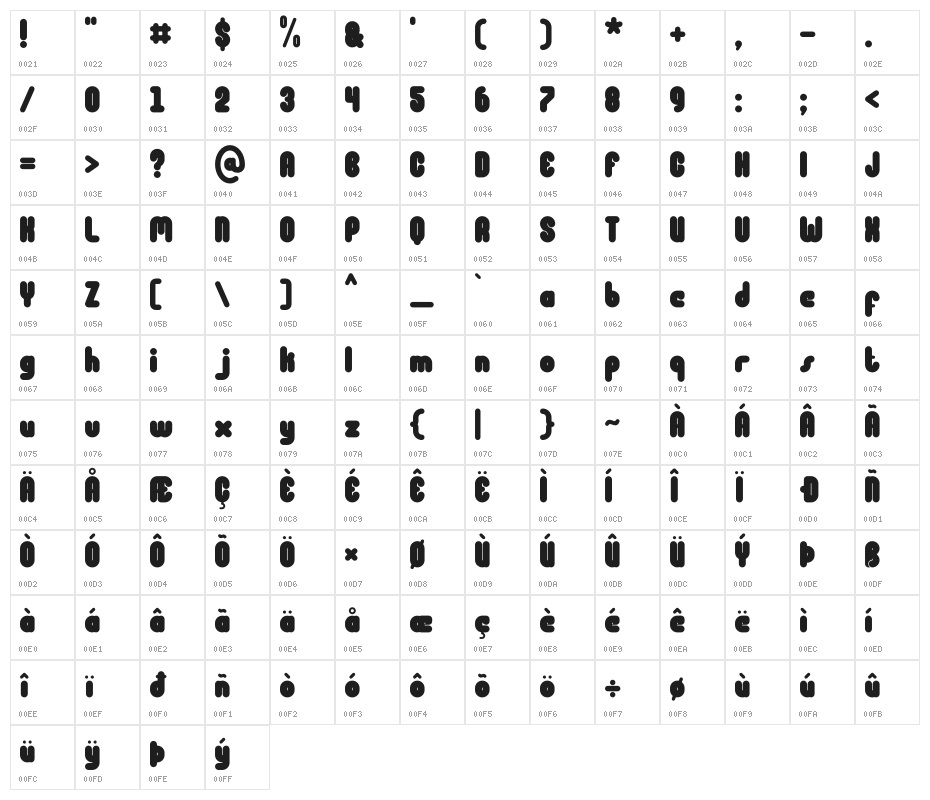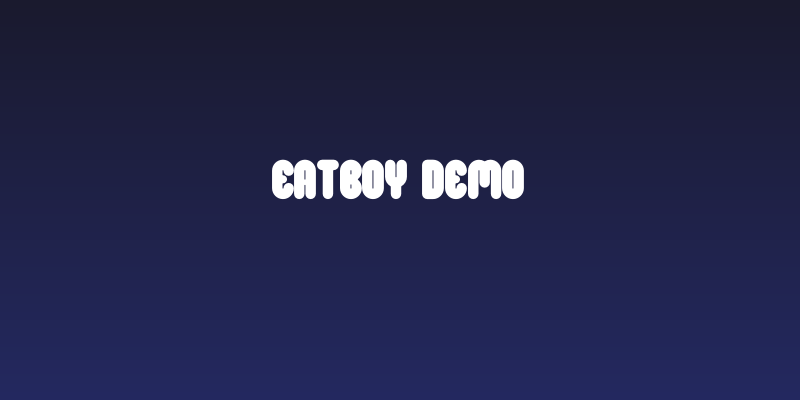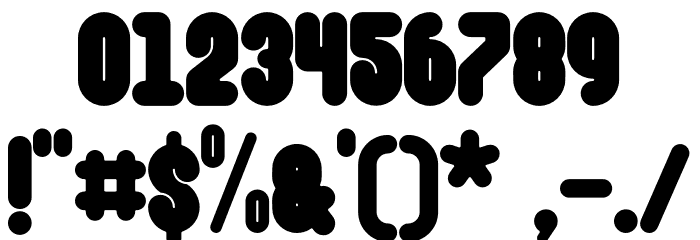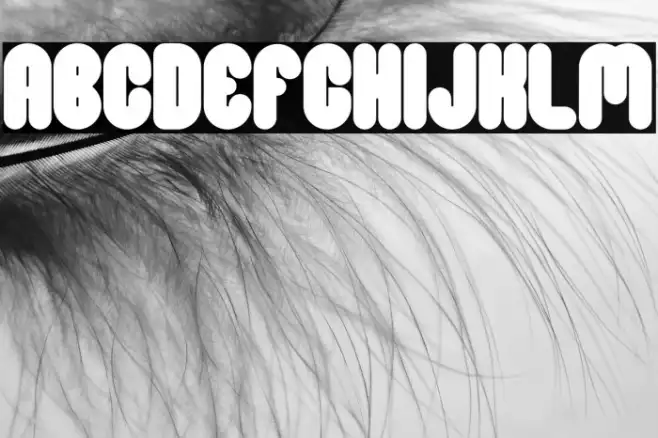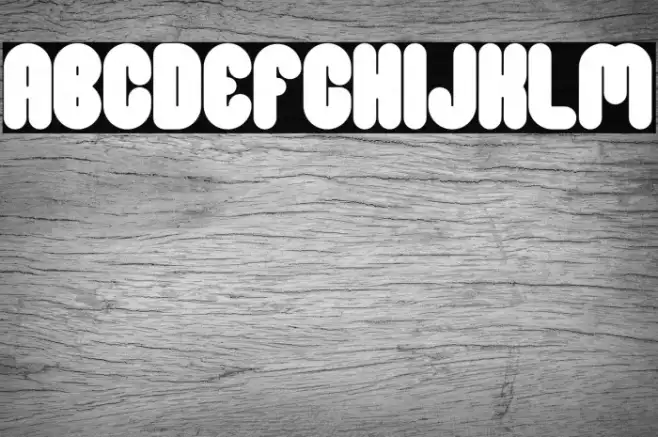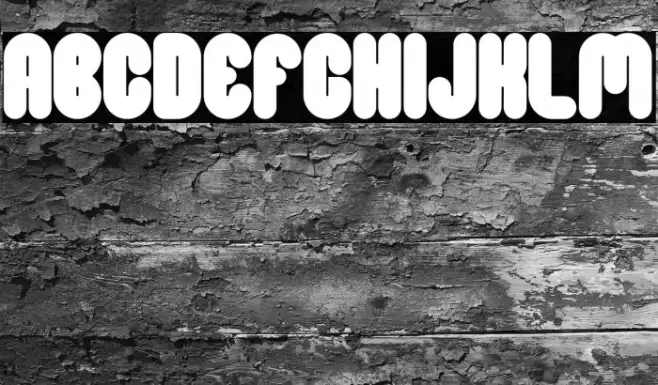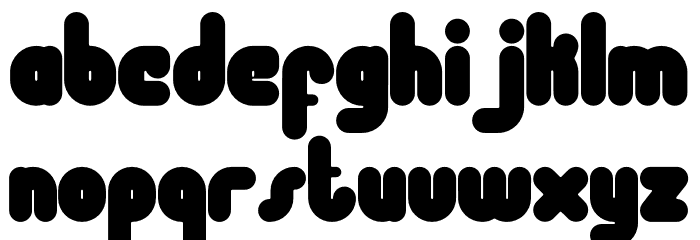
Eatboy Demo Font
Eatboy Demo Description
This font features a bold and playful design with rounded edges and a thick, uniform stroke. The characters are highly stylized, giving off a fun and modern vibe. The uppercase and lowercase letters maintain a consistent weight, creating a cohesive look throughout. The numbers and special characters follow the same design principles, ensuring uniformity across all elements. The overall appearance is chunky and eye-catching, making it ideal for projects that require a strong visual impact.
| Proposed Projects | Ideal for children's books, playful branding, posters, and social media graphics. |